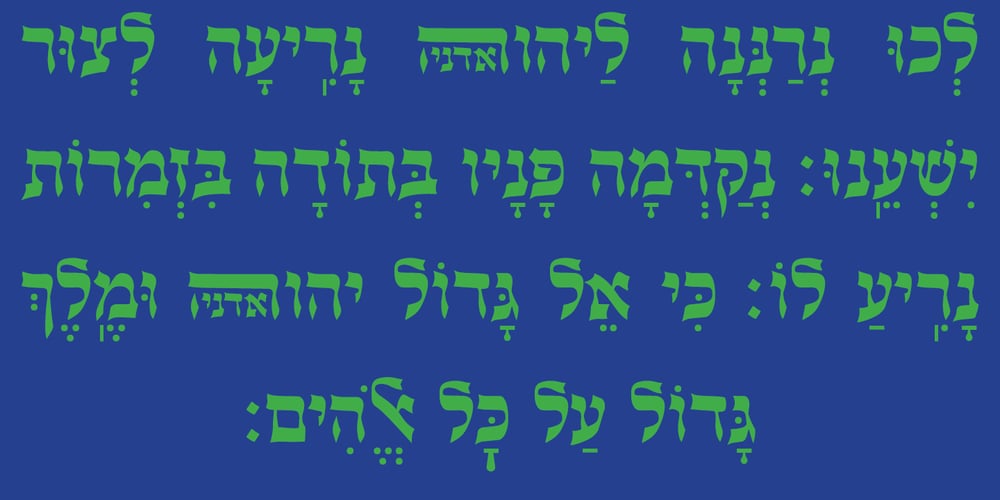
Hebrew Crown Font Family was designed by Sami Artur Mandelbaum and published by Samtype. Hebrew Crown contains 2 styles and family package options. This is a beautiful font to book covers and posters, and invitations